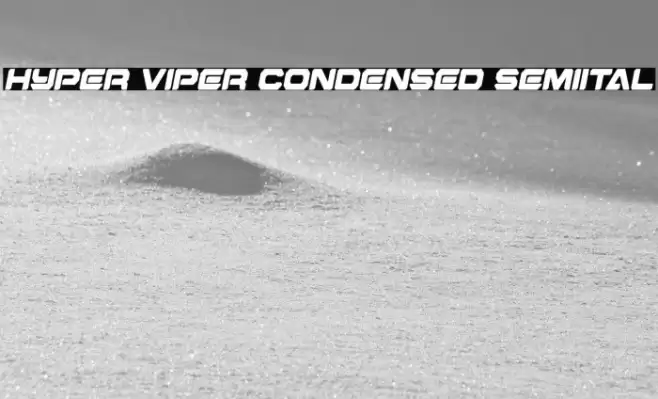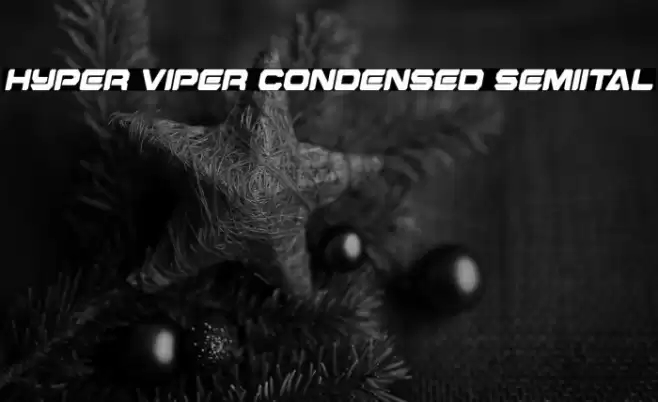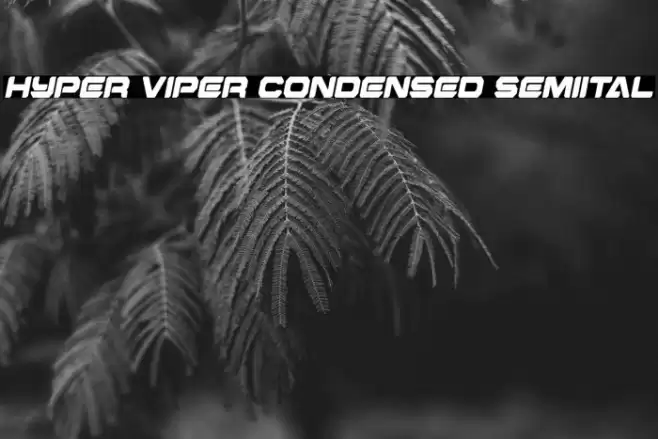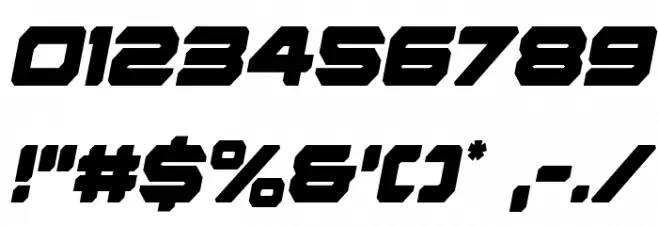
Hyper Viper Condensed SemiItal Font
Hyper Viper Condensed SemiItal Description
This font features a bold, futuristic design with a condensed and semi-italic style. The characters are angular and dynamic, giving a sense of speed and modernity. The uppercase and lowercase letters maintain a consistent style, with sharp edges and a slight slant that adds to the overall sleek appearance. The numbers and special characters follow the same design principles, ensuring uniformity across all glyphs. This font is ideal for projects that require a strong, impactful visual presence.
A bold, condensed, semi-italic font with a futuristic and dynamic style from Uncategorized fonts.
- Proposed Projects: Ideal for branding, sports team logos, video game titles, and sci-fi themed designs.
- Character Spacing: Tight
- Use Case: Logos, Headlines